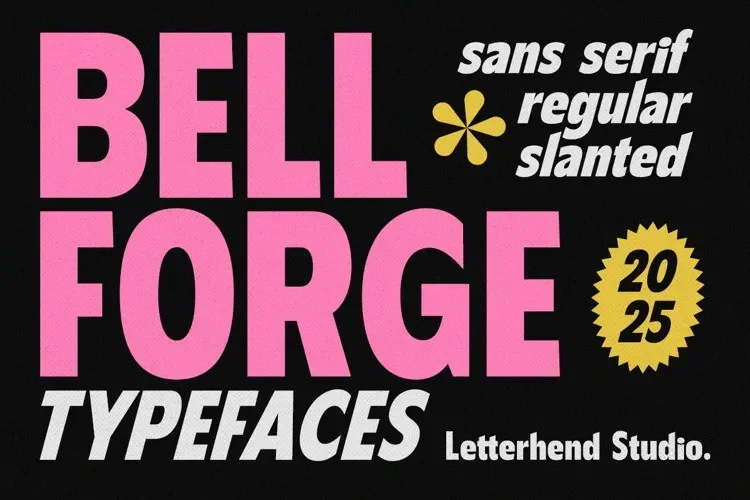
Bellforge Font addresses the need for classic typography in projects that rely on tradition and clarity. Designers often choose serif fonts like this for formal print and long-form reading.
Bellforge Font is a serif typeface featuring defined serifs, consistent stroke contrast, and balanced proportions. The letterforms support readability across paragraphs, making it suitable for extended text.